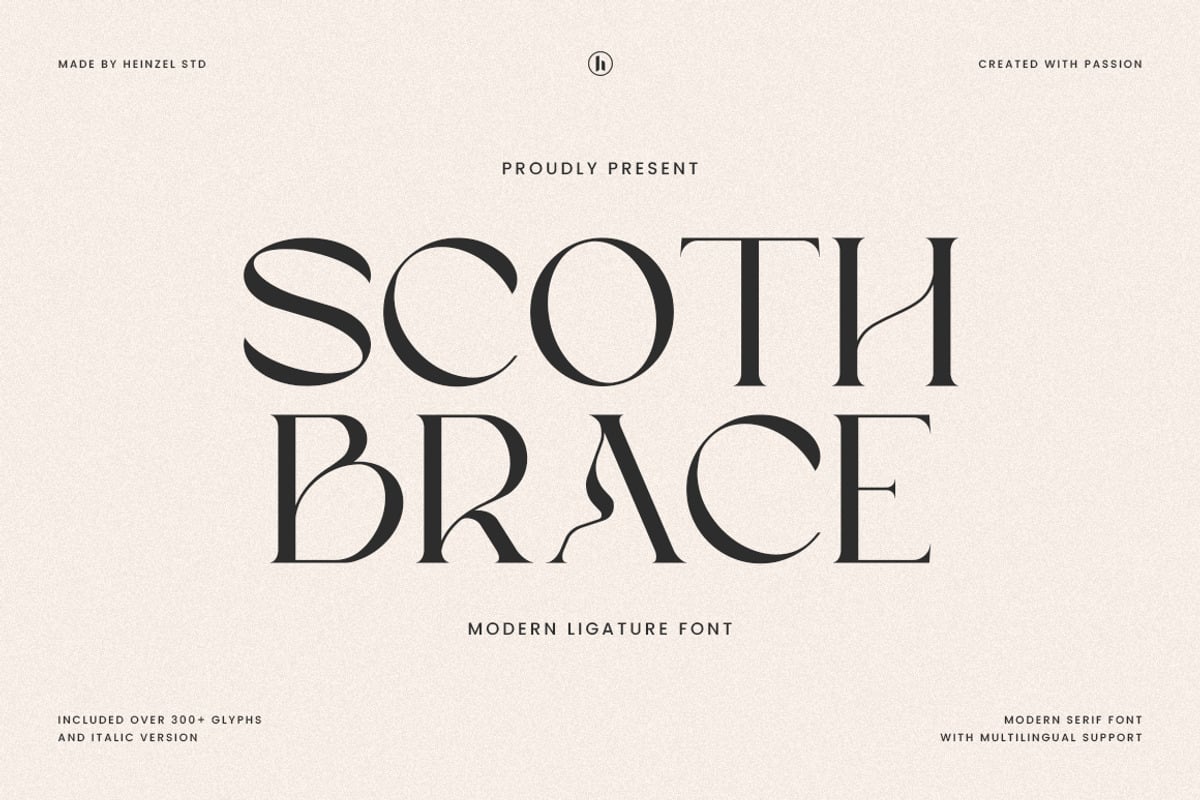
Scoth Brace Modern Ligature Font
Scoth Brace is the elegant, modern ligature serif font your luxury branding projects have been waiting for.
Fall for its ravishing style and use it to create gorgeous logos, striking headlines, refined branding, wedding invitations, beautiful stationery art, eye-catching social media posts, and much more. Scoth Brace is PUA encoded, meaning every glyph is fully accessible — even without design software that supports OpenType features.
- Regular and Italic versions included
- Uppercase, lowercase, numerals, and punctuation
- Multilingual support for 21 languages: Afrikaans, Basque, Breton, Catalan, Danish, Dutch, English, Finnish, French, Gaelic (Irish, Scots), German, Icelandic, Indonesian, Irish, Italian, Norwegian, Portuguese, Saami (Southern), Spanish, Swahili, and Swedish